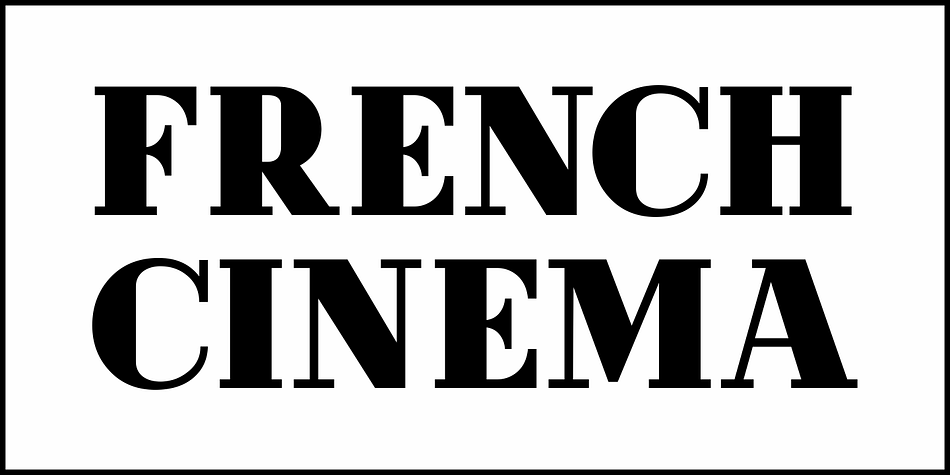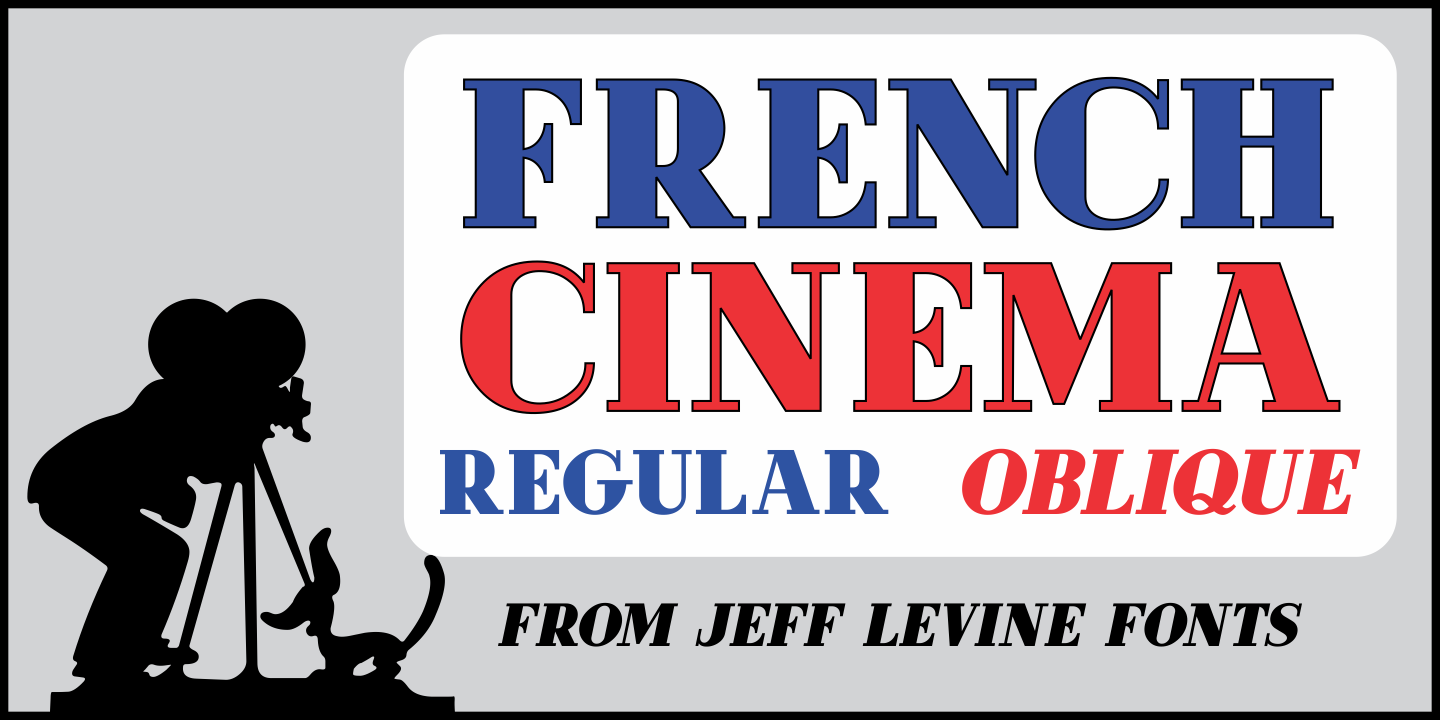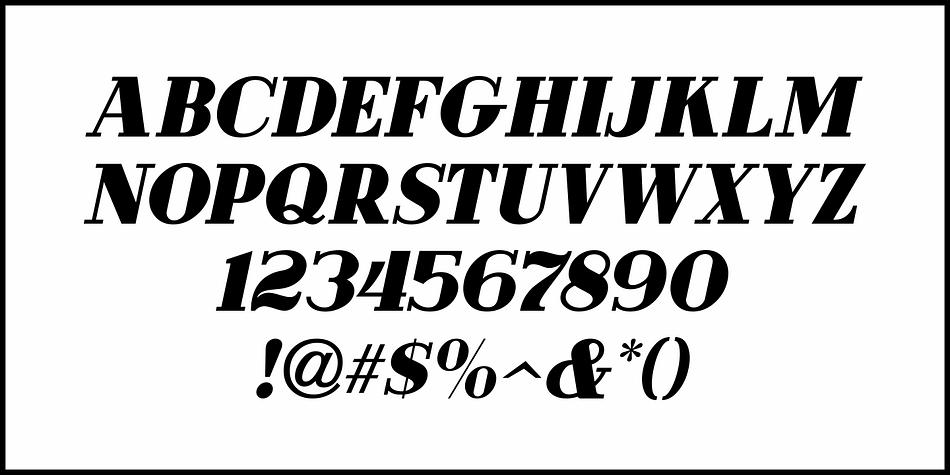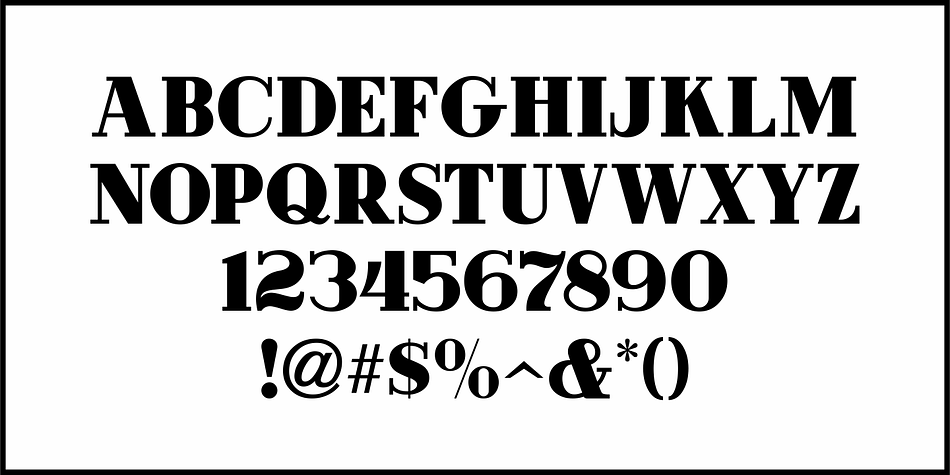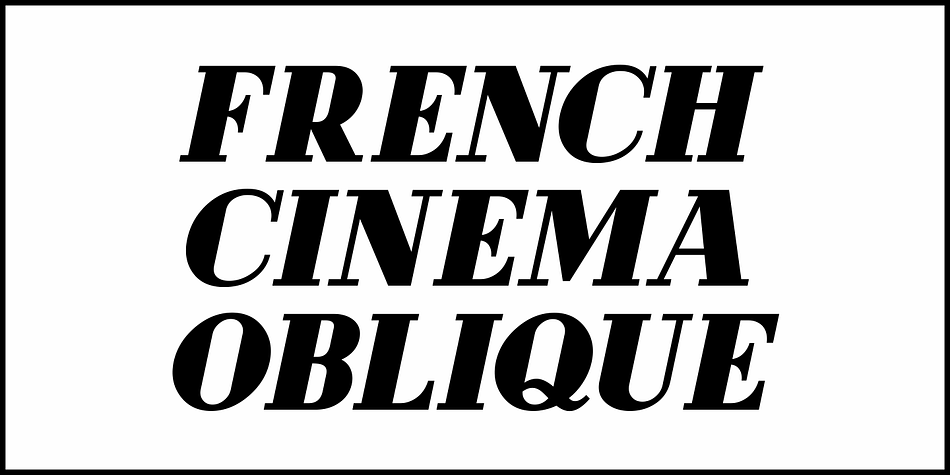
FRENCH CINEMA JNL
Designed by Jeff Levine, French Cinema JNL is a display serif font family. This typeface has two styles and was published by Jeff Levine Fonts.
The hand lettered title credits for the 1950 French film “Lady Paname” inspired French Cinema JNL, which is available in both regular and oblique versions.